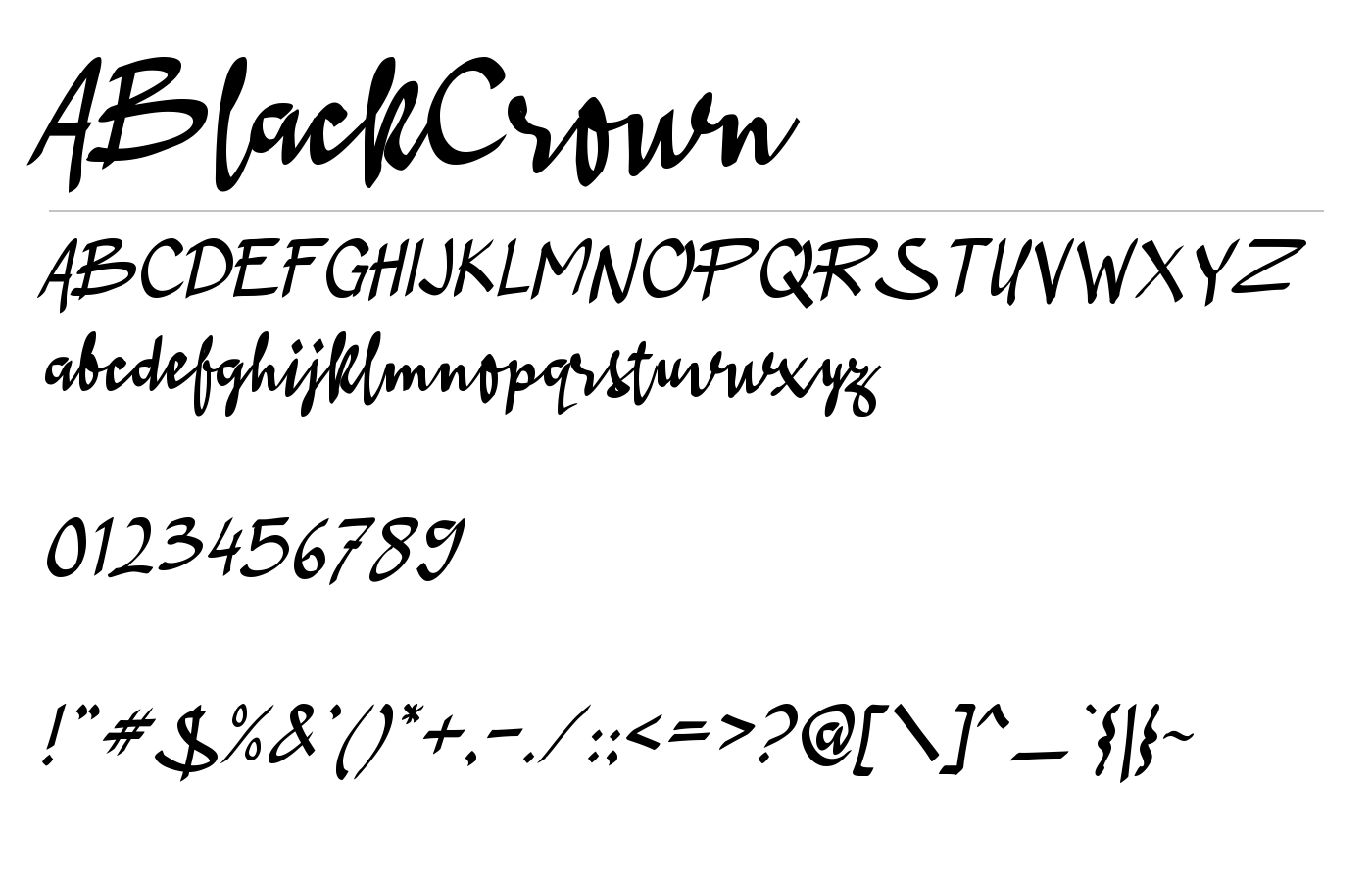
ABlackCrown is a lively, brush-style script font that combines energetic strokes with a bold, casual feel. Its dynamic letterforms feature moderate contrast and a slightly condensed width, making it perfect for creative branding, headlines, and packaging that seek a handcrafted, approachable, yet stylish touch. This font works well where a personal and expressive vibe is desired, adding personality and flair to designs.
ABlackCrown Font